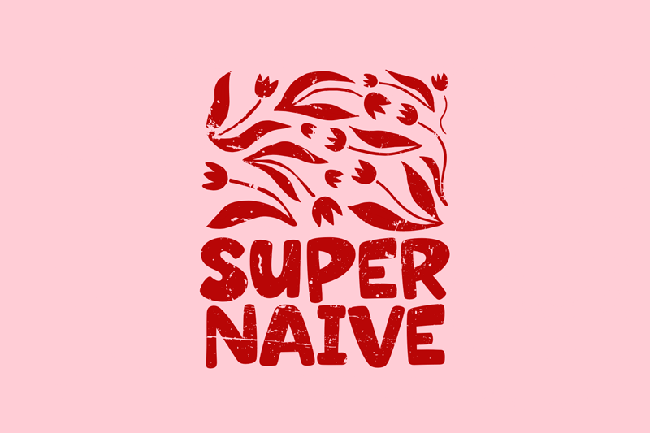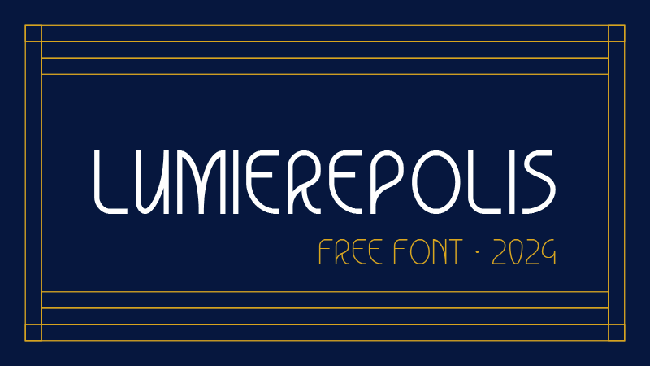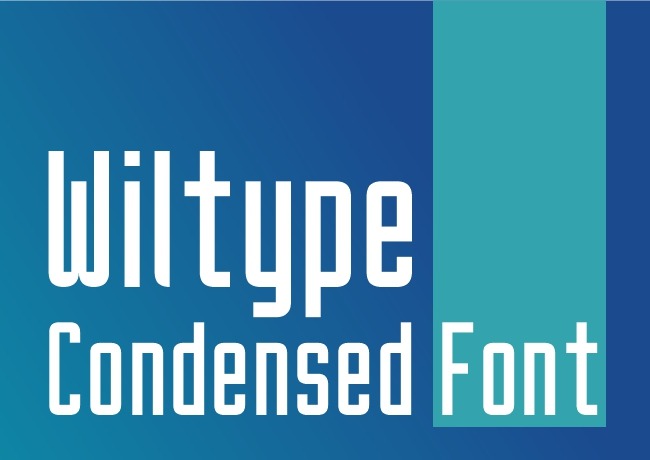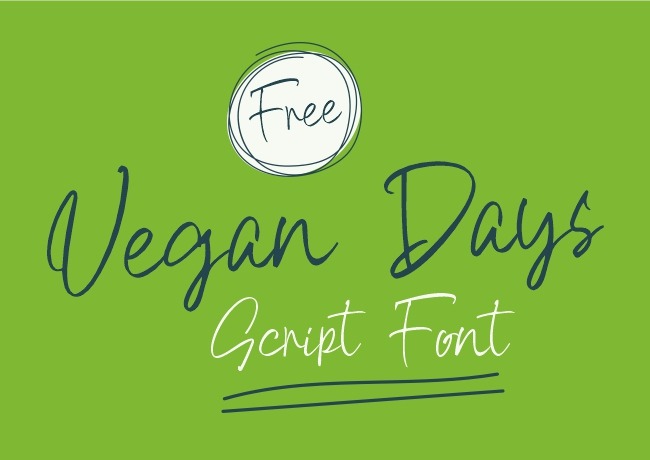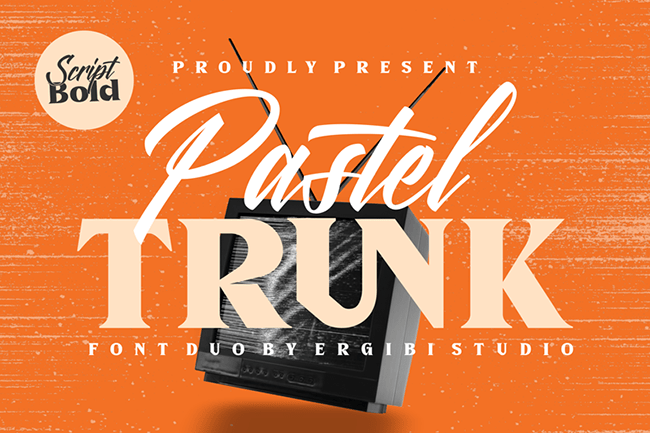
Typography can completely change how a design feels before the viewer has consciously processed a single word.
A neutral sans serif can make a brand feel controlled and contemporary. A condensed font can turn a short headline into a powerful poster element. A playful display face can give packaging personality, while a handwritten typeface can make a digital composition feel more personal and human.
That is why searching for the best free fonts for 2026 should not simply mean collecting as many typefaces as possible. A useful font library needs range.
You need typefaces that can solve different problems:
- A versatile sans serif for branding and layouts.
- An expressive display font for headlines.
- A condensed option when horizontal space is limited.
- A handwritten font for personality.
- A retro face for projects that need historical character.
- A softer decorative typeface for lifestyle and playful work.
This DesignRise collection brings together 15 modern, expressive, handwritten, retro, condensed, and experimental font downloads that can add very different voices to branding, posters, packaging, editorial graphics, social media, logos, web concepts, and other creative projects.
Instead of presenting them as a simple download list, this guide explains where each font makes the most sense, which styles work better for headlines than body copy, how to pair expressive typefaces with quieter supporting fonts, and what to check before using a downloaded font professionally.
What Makes a Font Useful in 2026?
A font does not become useful simply because it looks unusual in a specimen image. The real test begins when it enters a design system.
It Needs a Clear Role
Ask what the font is supposed to do.
Is it:
- A brand typeface?
- A hero headline?
- A packaging accent?
- A social-media display face?
- A body-text font?
- A logo starting point?
A highly decorative typeface can be excellent when used for a three-word headline and terrible when forced into a paragraph.
It Needs Enough Character to Be Memorable
Many contemporary layouts depend on relatively simple grids, colors, and photography. Typography often provides the distinctive personality.
It Still Needs to Communicate
Visual originality is useful only until it interferes with reading.
Good typography balances personality with function.
Typography Directions Worth Exploring
The fonts in this collection represent several useful directions for contemporary design rather than one single aesthetic.
Versatile Modern Sans Serifs
Clean sans-serif families remain valuable because they can support:
- Brand identities.
- Web layouts.
- Editorial systems.
- Presentations.
- Packaging.
- Digital products.
The strongest ones have enough personality to avoid feeling anonymous while staying neutral enough to work across many applications.
Expressive Display Typography
Display fonts are becoming an increasingly important part of identity-led layouts because one unusual headline can carry much of the visual character of a campaign.
They are particularly useful for:
- Posters.
- Music graphics.
- Social campaigns.
- Packaging.
- Editorial covers.
Handwritten and Human Typography
Handwritten fonts provide contrast against highly polished digital layouts.
They can make typography feel:
- Friendly.
- Personal.
- Informal.
- Handmade.
- Spontaneous.
Retro Type Without Full Retro Design
You do not need to build an entire vintage layout to use a historically inspired font.
A retro display face can create interesting tension when combined with contemporary photography, minimal layouts, or modern color systems.
Condensed Type for Strong Headlines
Narrow typefaces allow designers to create large, high-impact headlines without consuming excessive horizontal space.
15 Best Free Fonts for Designers in 2026
1. ZT Nature Font
Best for: branding systems, websites, editorial layouts, presentation design, interfaces, digital products, and clean contemporary typography.
ZT Nature is one of the most versatile typefaces in this collection. It combines geometric construction with softer forms, giving it enough neutrality for professional communication without feeling completely anonymous.
That makes it especially useful when you need one type family to perform several jobs rather than one decorative font for a single headline.
Why It Is a Strong Foundation Font
ZT Nature can support a hierarchy ranging from restrained supporting text to much heavier headlines. That makes it useful for identity systems where consistency matters across:
- Website layouts.
- Presentations.
- Editorial pages.
- Social media.
- Packaging.
Pair a stronger weight with generous negative space for contemporary branding, or use lighter styles in editorial and lifestyle work.
2. Bitter & Sugar Font
Best for: poster headlines, packaging, social media graphics, stickers, titles, youth-oriented branding, and short expressive messages.
Bitter & Sugar belongs on the display side of the typography spectrum. Rather than disappearing quietly into a layout, it gives the words themselves visual personality.
Use It as the Hero
Fonts with a strong visual voice work best when they do not have to compete with:
- Several other decorative fonts.
- Complex backgrounds.
- Too many effects.
Use Bitter & Sugar for the key phrase and pair it with a much quieter sans serif for supporting information.
3. Super Naive Font
Best for: children’s graphics, stickers, food packaging, playful branding, casual posters, social media, and entertainment projects.
Super Naive is a playful display typeface rather than a general-purpose text font.
Its value comes from immediately changing the tone of the message. Even a very simple word can begin to feel more friendly, informal, and energetic.
Keep the Supporting System Simple
When the headline already carries this much personality, use restrained supporting typography and allow enough space around the lettering.
4. Pleasure Handwritten Font
Best for: lifestyle design, social graphics, quotes, notes, personal brands, stationery concepts, and casual editorial accents.
Pleasure Handwritten introduces something deliberately human into polished digital compositions.
That makes handwritten typography especially useful beside clean layouts, product photography, or geometric sans serifs.
Do Not Set Long Paragraphs in It
Handwriting works best as an accent:
- A signature.
- A short quote.
- A label.
- A highlighted phrase.
5. Lumierepolis Font
Best for: retro-modern branding, editorial titles, cultural projects, posters, hospitality, packaging, and campaign graphics.
Lumierepolis brings retro character without forcing the complete composition to become nostalgic.
The family format also makes it more practical than a one-style novelty face because a designer can build greater hierarchy while keeping the same typographic voice.
Mix Retro Type With Modern Art Direction
Try combining it with:
- Contemporary photography.
- Minimal layouts.
- Unexpected color palettes.
- Clean iconography.
This often produces a fresher result than surrounding a retro font with every possible vintage effect.
6. Wiltype Font
Best for: branding, headlines, posters, editorial layouts, modern presentations, packaging, and structured social graphics.
Wiltype provides a cleaner counterpoint to the more expressive fonts in this list.
Simple sans-serif forms are useful because they allow other parts of the identity — imagery, color, illustration, or layout — to carry more personality.
Use Scale Instead of Decoration
A clean sans serif does not need gradients, shadows, outlines, and effects to become interesting.
Try:
- Oversized type.
- Tight crop.
- Large contrast between headline and caption.
- Strong alignment.
7. Ryga Font
Best for: posters, events, music artwork, fashion graphics, hospitality, cultural campaigns, and retro-inspired branding.
Ryga belongs in the category of fonts that can become the visual concept of a layout by themselves.
Use It at Display Scale
Decorative structure becomes easier to appreciate when the type is large.
Use it for:
- One-word titles.
- Brand names.
- Event names.
- Short editorial headings.
and allow a simpler typeface to handle smaller information.
8. Vegan Days Script Font
Best for: cafés, food brands, organic products, lifestyle graphics, handmade products, packaging, social media, and casual logos.
Vegan Days has a handwritten script character that naturally suits projects where friendliness and informality matter.
Pair Script With Structure
A script font becomes easier to use when paired with:
- A geometric sans serif.
- A neutral grotesk.
- A simple uppercase caption font.
The contrast creates hierarchy while preventing the entire composition from feeling handwritten.
9. Super Mellow Font
Best for: playful branding, packaging, posters, entertainment, lifestyle products, merchandise, and social media.
Super Mellow is another personality-first display option. Its role is not to disappear into the hierarchy but to make short text feel visually distinctive.
Build Around One Strong Phrase
Try using one oversized title and limiting the rest of the layout to a restrained supporting system.
10. Super Crawler Font
Best for: entertainment design, posters, gaming-adjacent graphics, music artwork, event titles, merchandise, and high-energy campaigns.
Super Crawler works when typography needs more energy than a conventional sans-serif headline can provide.
Test the Actual Project Name
Characterful display fonts can look excellent in a specimen but behave very differently depending on the exact combination of letters.
Always type the real:
- Brand name.
- Event title.
- Headline.
before deciding.
11. Hilarious HF Font
Best for: quotes, social graphics, personal branding, casual campaigns, invitations, lifestyle design, and handwritten accents.
Hilarious HF provides an informal handwritten alternative to highly polished display typography.
Check Character Support Before Multilingual Work
Handwritten free fonts sometimes contain a more limited character set than large professional font families.
Before choosing one for an international project, test:
- Accents.
- Punctuation.
- Currency.
- Special symbols.
- All required languages.
12. Scabber Font
Best for: editorial accents, art projects, posters, informal branding, handwritten notes, social graphics, and experimental layouts.
Scabber can be used to break the precision of grid-based layouts and introduce a more spontaneous typographic voice.
Contrast Is More Effective Than Repetition
One handwritten heading beside structured typography often feels more intentional than making the entire layout informal.
13. Pastel Trunk Font
Best for: wedding stationery, beauty, fashion, lifestyle branding, invitations, packaging, photography, and elegant social graphics.
Pastel Trunk moves toward calligraphic typography, making it suitable for projects where elegance and a more decorative handwritten rhythm are important.
Give Calligraphy Enough Space
A script like this works better when it has room to breathe.
Avoid:
- Tiny sizes.
- Tight line spacing.
- Long paragraphs.
- Busy photographic backgrounds.
License reminder: check the current source terms before commercial use; the free download version may have usage restrictions.
14. Debaznue Font
Best for: contemporary branding, fashion layouts, posters, logo concepts, packaging, campaigns, and large headlines.
Debaznue brings a more modern display-oriented direction to the collection.
This kind of font can work particularly well when the layout needs clarity but a completely neutral sans serif feels too safe.
Use It for Identity-Led Headlines
Try it in:
- Large brand statements.
- Fashion campaigns.
- Packaging names.
- Poster titles.
License reminder: the free version offered through the linked source is intended for personal use, so commercial projects require checking the appropriate license.
15. Fresh Lemonade Font
Best for: food packaging, cafés, summer campaigns, posters, lifestyle branding, merchandise, and retro-inspired social content.
Fresh Lemonade closes the collection with a retro display direction that naturally fits playful, optimistic, and lifestyle-focused design.
Use Retro Typography Without Making Everything Vintage
Try pairing the font with:
- Clean photography.
- Modern grids.
- Bold contemporary color.
- Minimal iconography.
The contrast can feel fresher than applying paper grain, faded colors, retro illustrations, and multiple nostalgic effects at once.
License reminder: the version linked here is distributed as a demo/personal-use font. Check the author’s commercial license before paid use.
How to Choose a Font for Branding
Do not begin by asking which font looks the most interesting.
Start with the personality the brand needs to communicate.
Professional and Contemporary
Begin with a versatile sans serif such as ZT Nature or Wiltype.
Friendly and Handmade
Explore Vegan Days, Pleasure Handwritten, Hilarious, or Scabber.
Playful and Expressive
Test Super Naive, Super Mellow, Bitter & Sugar, or Super Crawler.
Retro but Contemporary
Lumierepolis, Ryga, or Fresh Lemonade can provide a historical reference while still being used inside a modern system.
Elegant and Decorative
Pastel Trunk works better as an accent or display element than as a complete typographic system.
How to Test a Font Before Using It in a Logo
1. Type the Real Brand Name
A specimen containing carefully chosen words does not tell you how your actual name will look.
2. Test Problematic Letter Pairs
Look at how letters interact around:
- AV.
- WA.
- TT.
- LY.
- RA.
3. Test Small Size
The logo may eventually appear as:
- A social avatar.
- Website header.
- Packaging label.
- Business card.
4. Test Black and White
A logo that only works because of color effects may have a weaker underlying typographic structure.
5. Check Licensing Specifically for Logo Use
Do not assume that permission to install a free font automatically covers every commercial application.
How to Pair Fonts Without Making a Design Look Random
Pair Personality With Neutrality
One of the safest strategies is:
Expressive display font + neutral sans serif.
For example:
- Pastel Trunk + clean sans.
- Vegan Days + geometric sans.
- Super Naive + restrained grotesk.
- Ryga + simple body font.
Create Contrast, Not Conflict
If both fonts are:
- Highly decorative.
- Highly condensed.
- Strongly retro.
- Very handwritten.
they may compete instead of forming hierarchy.
Let Each Typeface Have One Job
For example:
- Display font — headline.
- Sans serif — body text.
- Small uppercase sans — labels and metadata.
How to Use Display Fonts Without Hurting Readability
Keep Headlines Short
The more unusual the typeface, the shorter the message should generally become.
Increase Size
Display details are easier to understand when they have enough scale.
Add More Space Around the Type
Decorative typography often needs more negative space than a standard sans serif.
Do Not Use It for Every Element
If every heading, button, caption, and paragraph uses the same expressive display font, the design loses hierarchy.
Font Pairing Workflow for a Brand Identity
- Choose the main brand personality.
- Select one primary typeface.
- Define where it appears.
- Add one quieter supporting font if necessary.
- Create headline, subheading, body, caption, and button samples.
- Test on real brand content.
- Test on mobile and print.
- Remove any font that does not have a clear job.
Free Font Licensing: What Designers Need to Check
The word free can describe several very different situations.
100% Free
The author may allow personal and commercial use, but you should still read the actual terms.
Open License
Some fonts are released under licenses such as the SIL Open Font License, which can permit broad professional use while still containing specific conditions.
Free for Personal Use
You can generally experiment with the font privately, but commercial work may require purchasing a license.
Demo
A demo may:
- Limit commercial use.
- Contain fewer characters.
- Exclude multilingual glyphs.
- Exclude alternate styles.
Font Licensing Checklist
- Is commercial use allowed?
- Is logo use allowed?
- Can it be used for client projects?
- Can it be used on merchandise?
- Is webfont embedding allowed?
- Can it be embedded inside an app?
- Can it be used in templates for resale?
- Does the free version have a limited character set?
- Does it support the languages required by the project?
- Do you need to preserve a copy of the license?
How to Check Whether a Font Is Actually Useful
Test a Full Sentence
Do not evaluate only one beautiful word.
Test Numbers
Especially important for:
- Pricing.
- Dates.
- Dashboards.
- Events.
- Packaging.
Test Punctuation
Check quotation marks, apostrophes, brackets, ampersands, hyphens, and other characters your project needs.
Test Multilingual Characters
This matters particularly for international branding.
Test Export
Make sure the font behaves correctly in the software and final file formats used by the project.
Common Font Selection Mistakes
1. Choosing the Font Before Understanding the Brand
Typography should communicate strategy rather than determine it accidentally.
2. Using Too Many Fonts
Most projects do not need four different font families.
3. Using Display Fonts for Body Copy
A font can be beautiful and still be inappropriate for long reading.
4. Choosing Only From the Specimen Image
Always test your real content.
5. Ignoring Numbers and Symbols
They often become important later in a project.
6. Ignoring Multilingual Support
A brand system can quickly break when the required characters are missing.
7. Pairing Two Fonts With the Same Visual Role
Typography needs hierarchy, not competition.
8. Using Effects to Make a Weak Font Choice Interesting
Typography should work before shadows, outlines, distortions, and gradients are added.
9. Assuming “Free Download” Means Commercial License
Always check the individual author’s terms.
10. Following a Typography Trend That Does Not Fit the Project
A trendy font is still the wrong choice if it conflicts with the audience, content, or brand personality.
Frequently Asked Questions About the Best Free Fonts for 2026
What are the best free fonts for 2026?
The most useful choice depends on the project. ZT Nature and Wiltype provide cleaner modern directions; Lumierepolis, Ryga, and Fresh Lemonade explore retro character; Vegan Days, Pleasure, Hilarious, and Scabber offer handwritten styles; while Super Naive, Super Mellow, Super Crawler, and Bitter & Sugar are stronger display options.
Are all fonts in this collection free for commercial use?
No. Some linked versions permit broader use, while others are personal-use or demo downloads. Always review the current license on the original source page.
What is the best font for branding?
For a complete identity system, a versatile family with several weights and good readability is usually easier to use than a highly decorative one-style display font.
Can I use a free font in a logo?
Only if the font’s license permits the intended use. Check the author’s current terms before finalizing commercial branding.
What is the difference between a display font and a text font?
A display font is primarily designed to create visual impact at larger sizes, while a text font prioritizes comfortable reading across longer passages and smaller sizes.
How many fonts should a brand use?
Many identity systems can work with one flexible family or a two-family combination. Additional typefaces should only be added when they have a clear purpose.
Are handwritten fonts professional?
They can be. Professional typography depends on context, hierarchy, execution, and brand fit rather than whether the letters look handwritten.
Can retro fonts work in modern branding?
Yes. Pairing a retro typeface with contemporary layout, photography, and color can create a distinctive modern result.
How do I know whether two fonts work together?
The fonts should create enough contrast to establish separate roles while still feeling compatible with the same visual system.
Should I use trending fonts just because they are popular?
No. Typography trends can provide inspiration, but the final decision should be based on the project’s audience, message, format, and intended personality.
Final Thoughts
The best free fonts for 2026 are not necessarily the most unusual typefaces or the fonts appearing most frequently in trend roundups.
The best font is the one that solves the problem in front of you.
ZT Nature can provide a flexible foundation for a complete visual identity. Wiltype can support cleaner headline systems. Lumierepolis and Ryga can introduce retro character. Vegan Days and Pleasure Handwritten can create a more personal tone. Pastel Trunk can add decorative elegance, while Super Naive, Super Mellow, Super Crawler, and Bitter & Sugar can make display typography the focal point of a composition.
The real skill is knowing when to use each one.
Test the actual words. Test small sizes. Check numerals and punctuation. Build a hierarchy. Pair expressive fonts with quieter typography. Check multilingual support when needed. Most importantly, verify the license before a font becomes part of a commercial project.
Good typography makes words attractive. Great typography makes the message feel inevitable in that particular visual system.